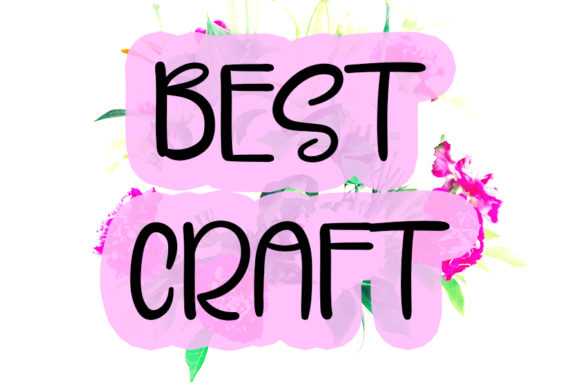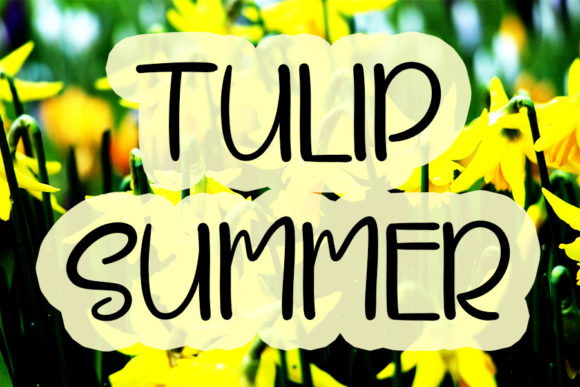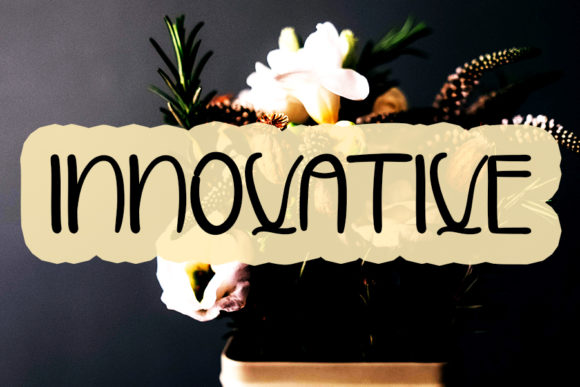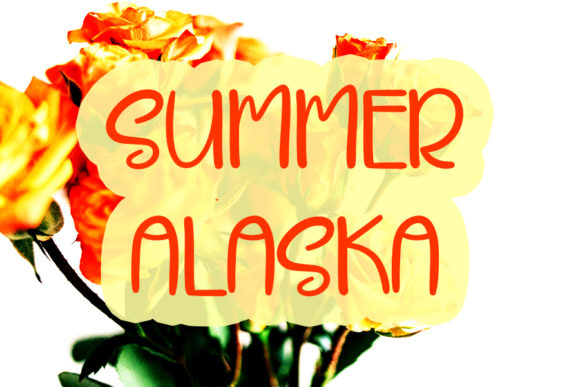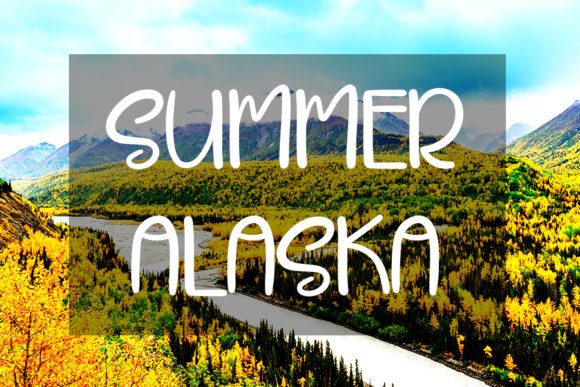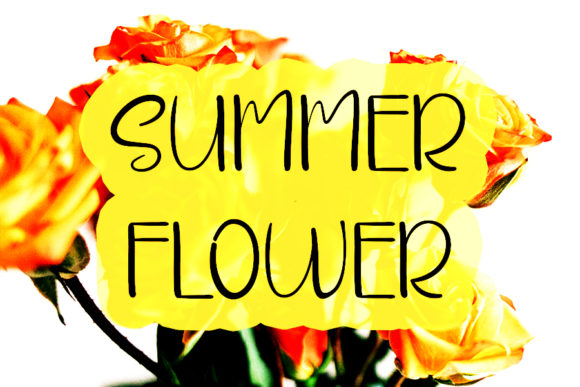
The Sweet Charm of Flower House Font: A Designer’s Delight
I’ll never forget the time I was working on a wedding invitation project, and I just couldn’t find the perfect font to match the client’s elegant yet playful style. I scrolled through page after page of font options, but nothing seemed quite right. That was until I stumbled upon Flower House Font, a sweet and friendly handwritten font that instantly captured the essence of the project. In this article, I’ll share my love for Flower House Font, its unique features, and how you can make the most of it in your designs.
So, what makes Flower House Font so special? Here are a few things that I absolutely love:
- ✨ Its natural and unique style, perfect for a wide range of designs
- ✅ Incredibly versatile, from wedding invitations to social media posts
- 💕 A warm and friendly feel that adds a personal touch to any project
- 🎨 Endless possibilities for creative expression
While Flower House Font is a stunning addition to any design, there are a few small quirks to keep in mind:
- 🤔 Some letters may require manual kerning for optimal spacing
- ⚠️ Limited availability of certain characters, such as accented letters
The Story Behind Flower House Font
While the true story behind Flower House Font remains a mystery, it’s easy to imagine that it was created by a designer who loves flowers, nature, and the beauty of handwritten script. Perhaps the designer wanted to capture the essence of a whimsical garden, where flowers bloom in every color and shape. Whatever the inspiration, Flower House Font is a delightful addition to any design project.
| Font Name | Flower House Font |
| Author | K_IN Studio |
| What makes Flower House Font so versatile? | Its natural and unique style, combined with a wide range of OpenType features, makes it suitable for various design projects, from wedding invitations to social media posts. |
| Is Flower House Font suitable for body text? | While Flower House Font is beautiful, it’s best suited for headlines, titles, and short paragraphs. For longer body text, you may want to choose a font with better legibility. |